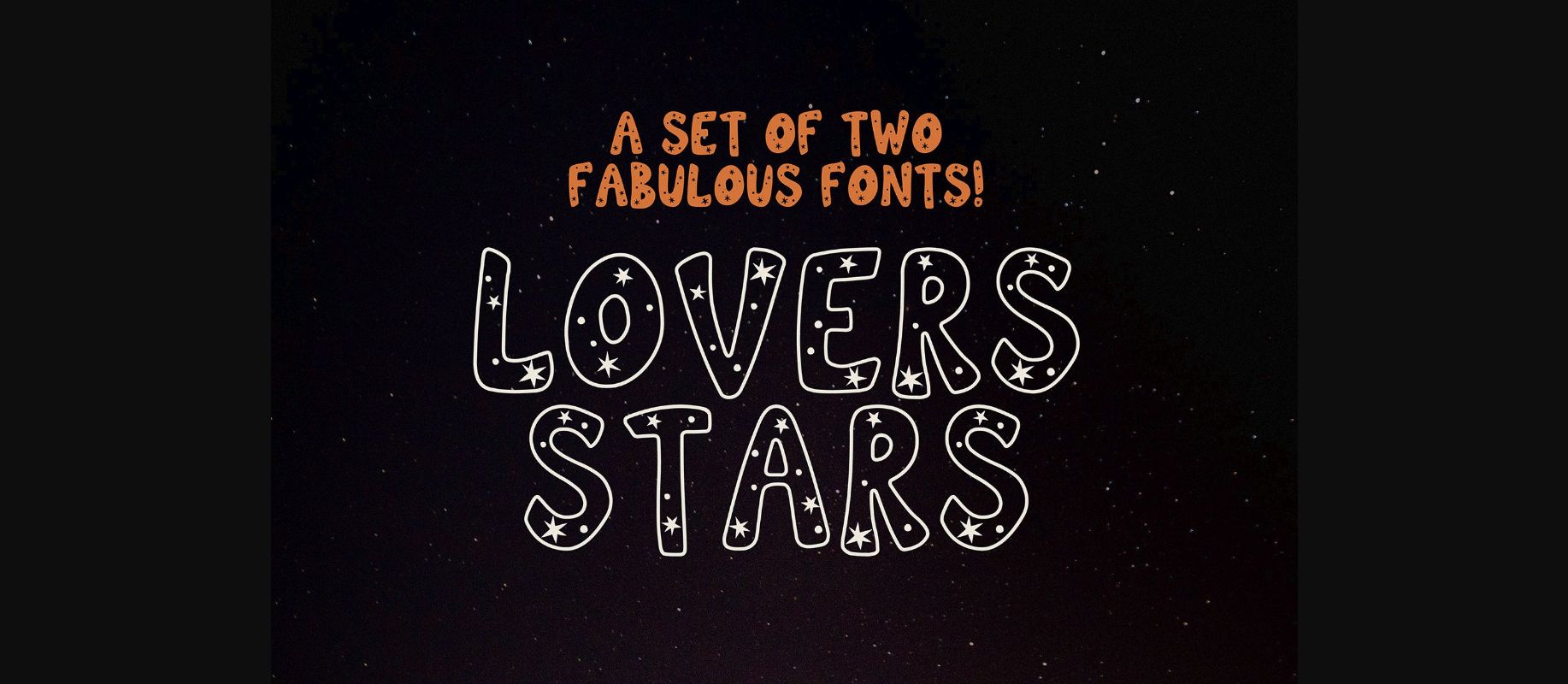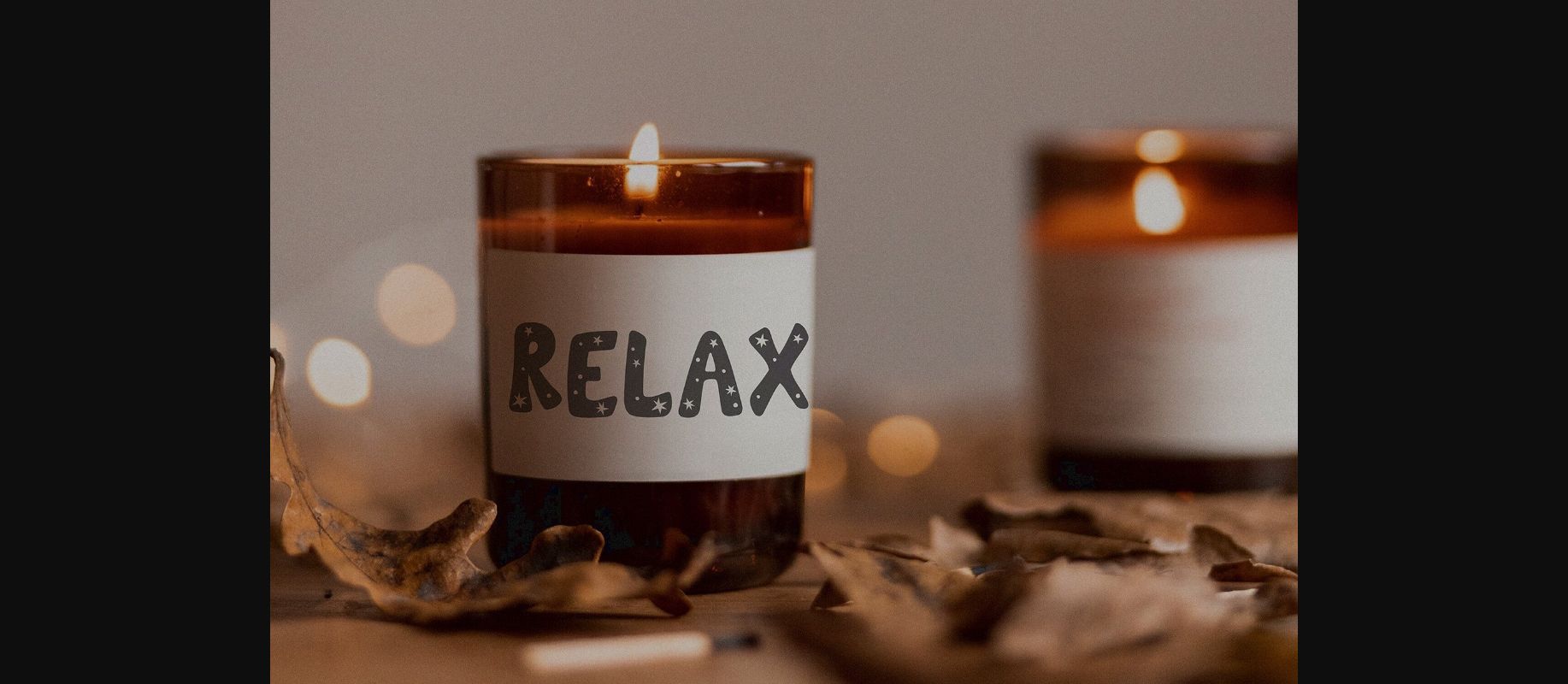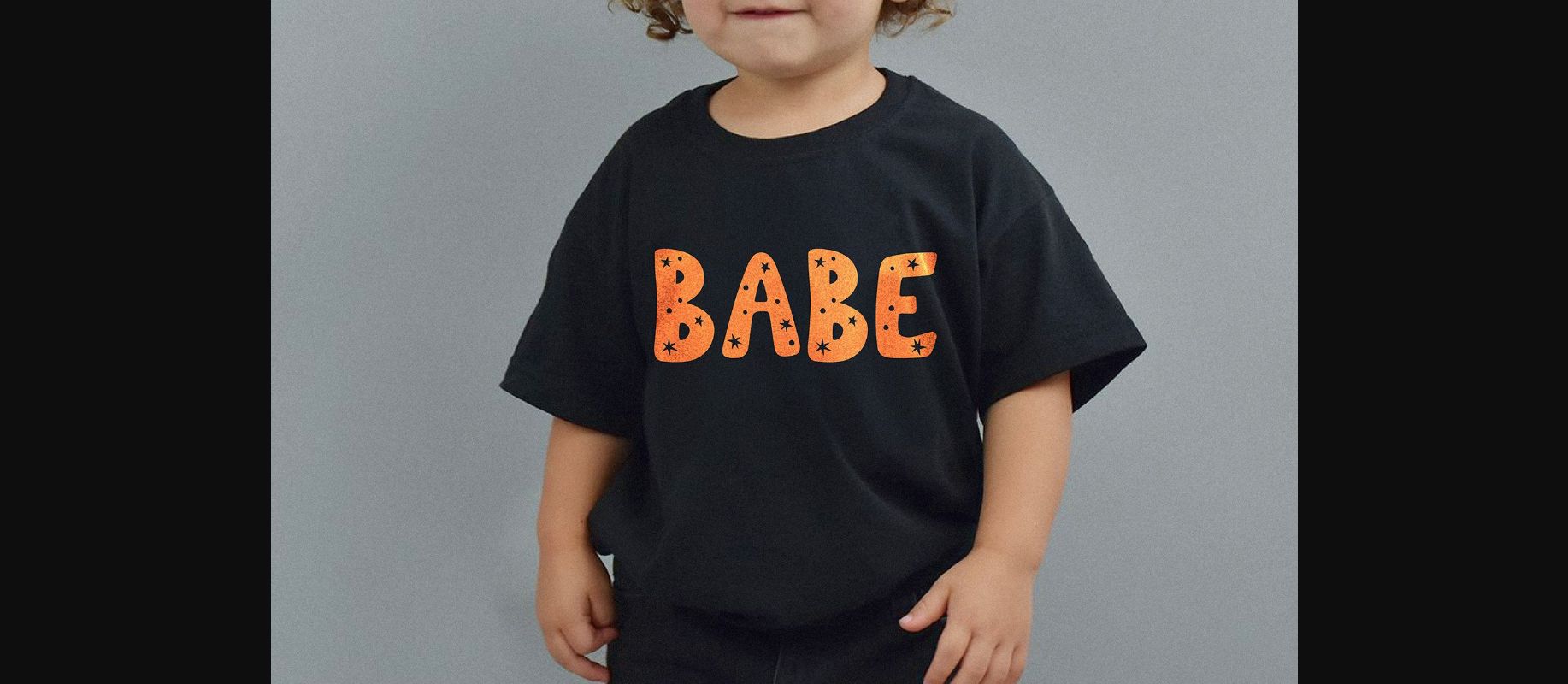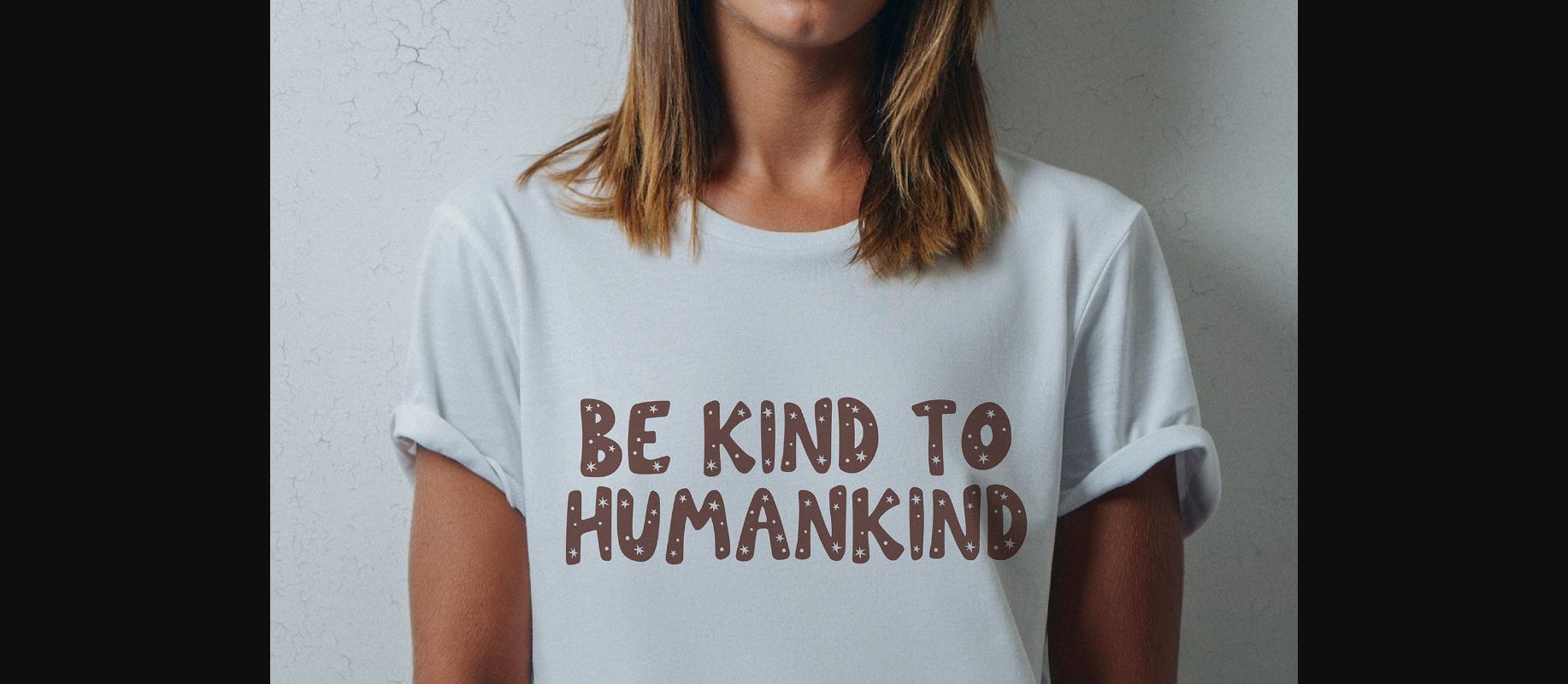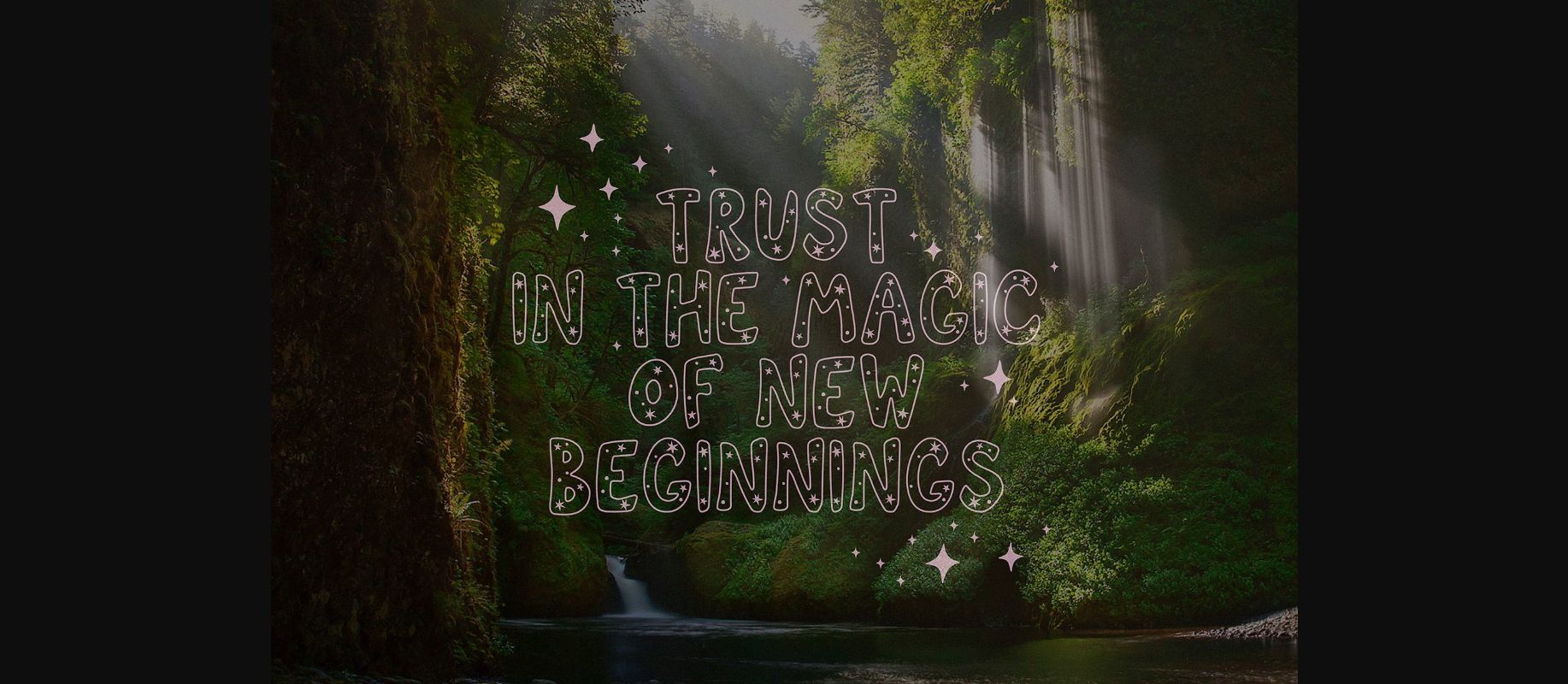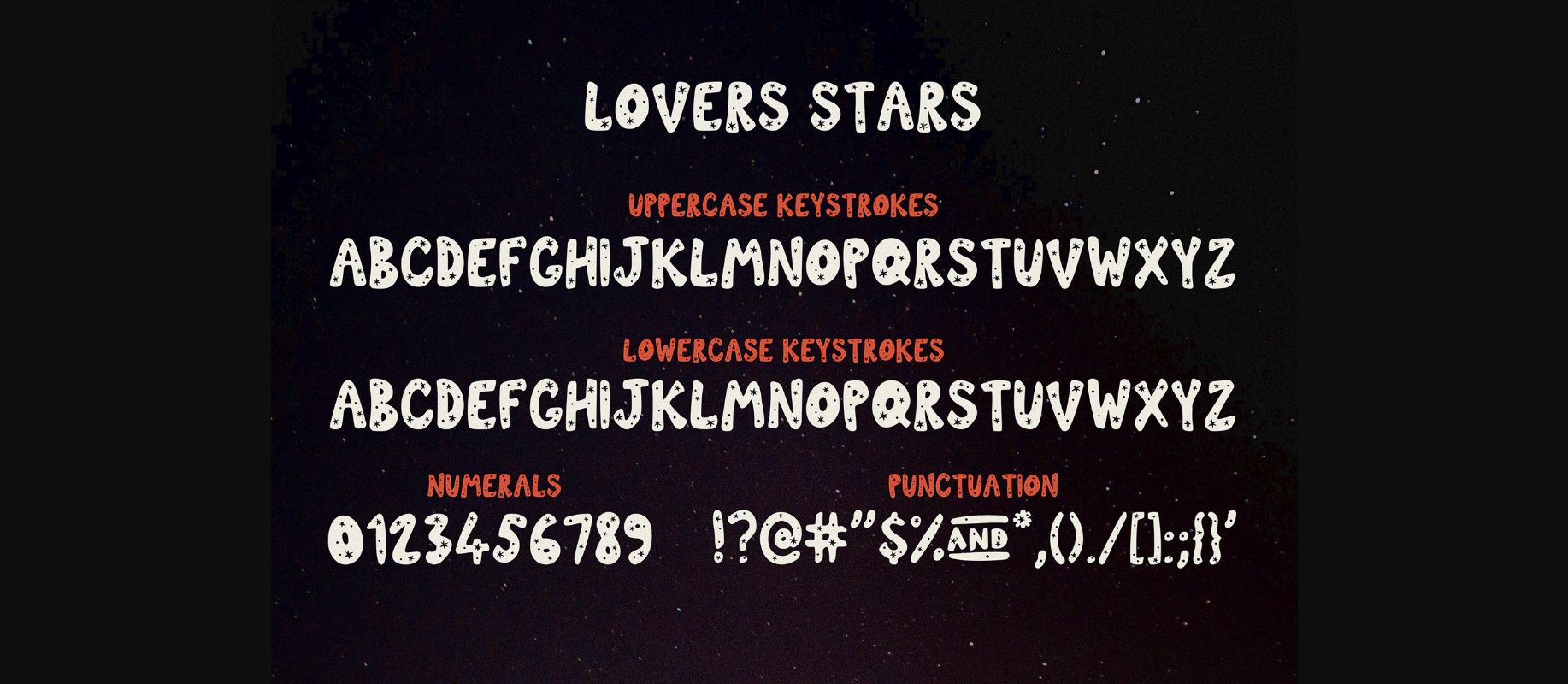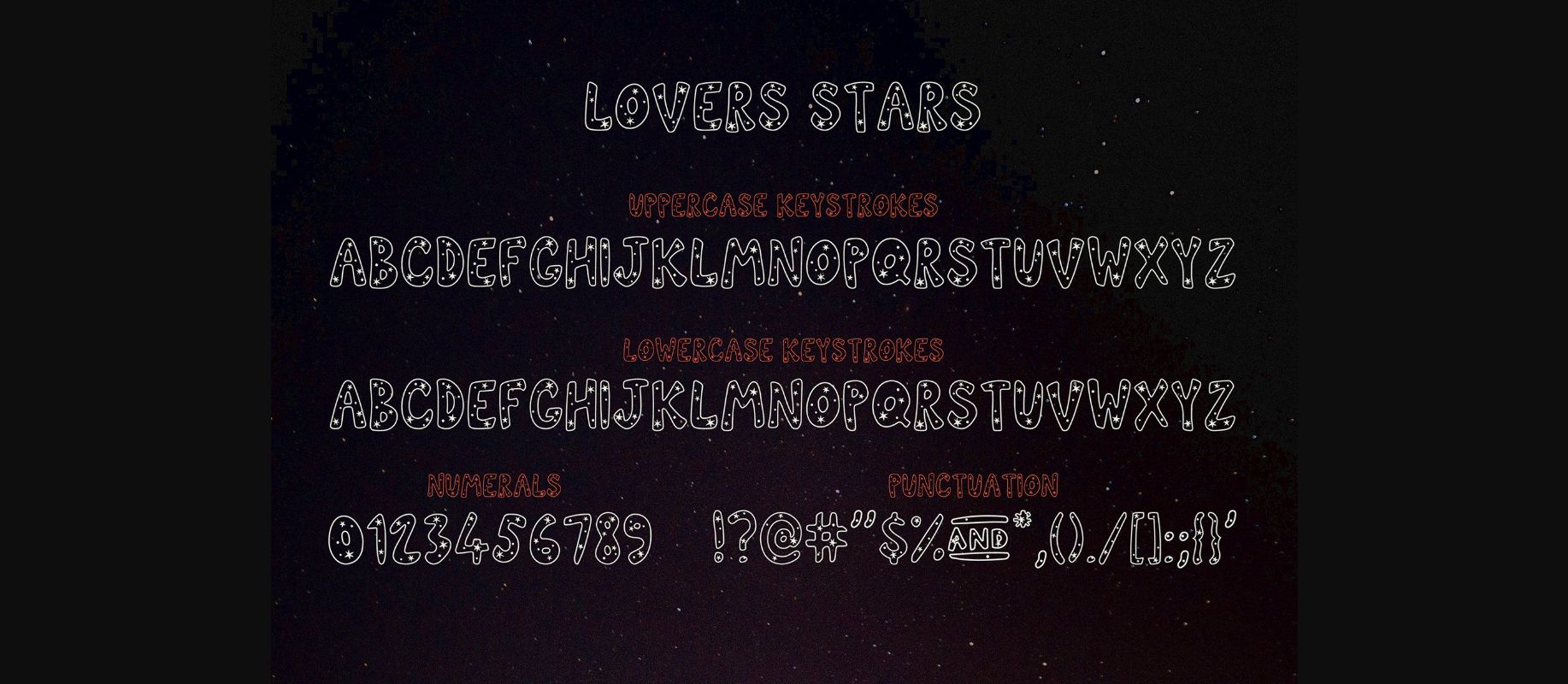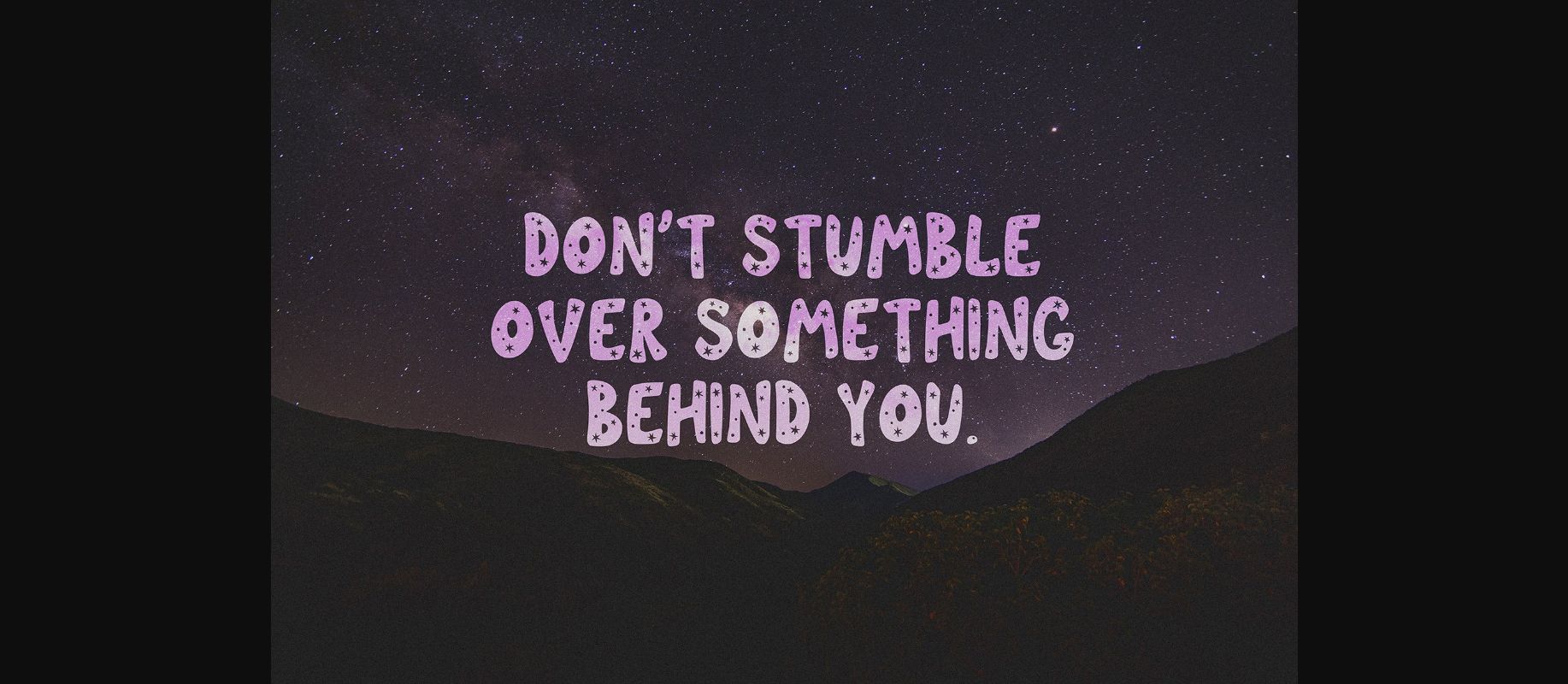
About Lovers Stars Font
Lovers Stars is a beautiful starry decorative font perfect for all your projects, lettering, drawings, signage, stickers, retro designs, shirts, and more. Fall in love with its incredibly versatile style and use it to create spectacular designs!